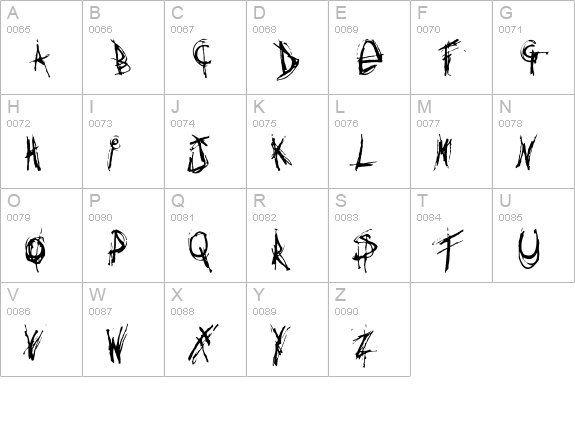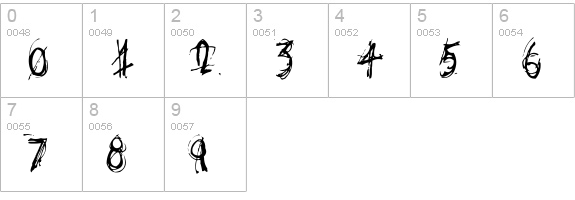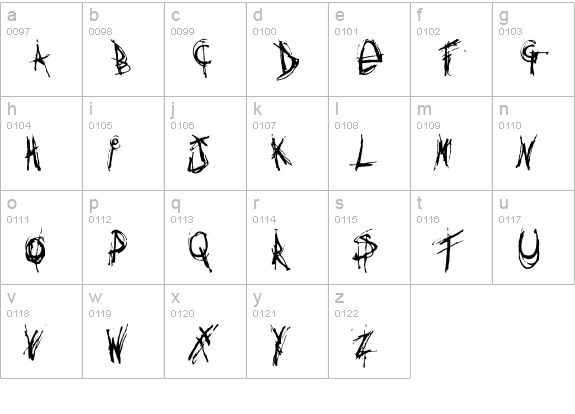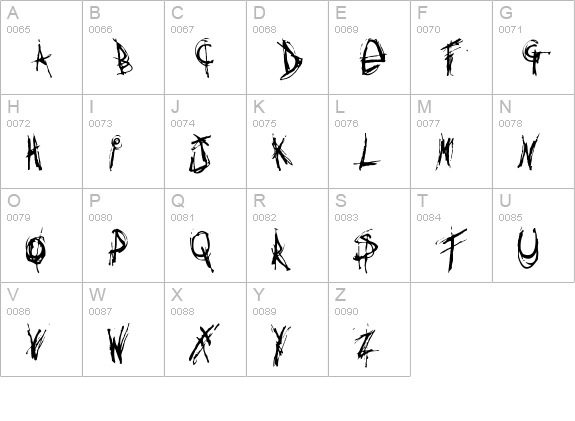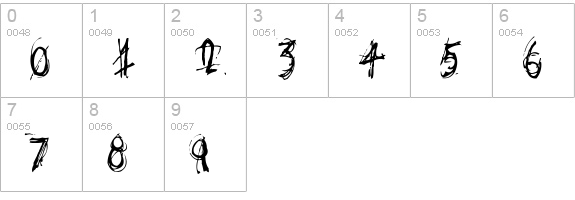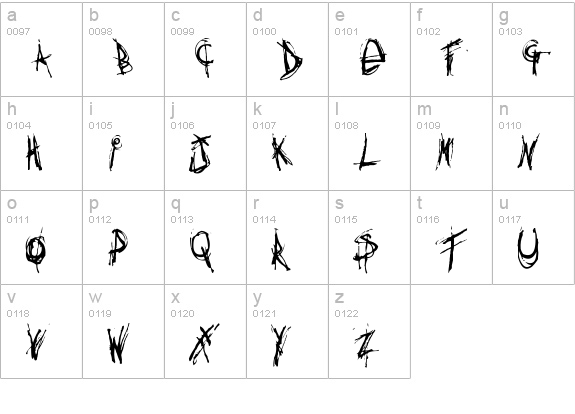
Anythingyouwant Font Details
Introducing Anythingyouwant font, a versatile and stylish typeface that will bring your designs to life! This font features a unique blend of modern and classic elements, making it perfect for a wide range of projects. Whether you are designing a logo, poster, or website, Anythingyouwant font will add a touch of sophistication and elegance. The best part? Anythingyouwant font is completely free to download at FontsMarket.com! This means you can elevate your creative projects without breaking the bank. So why wait? Download Anythingyouwant font today and take your designs to the next level!